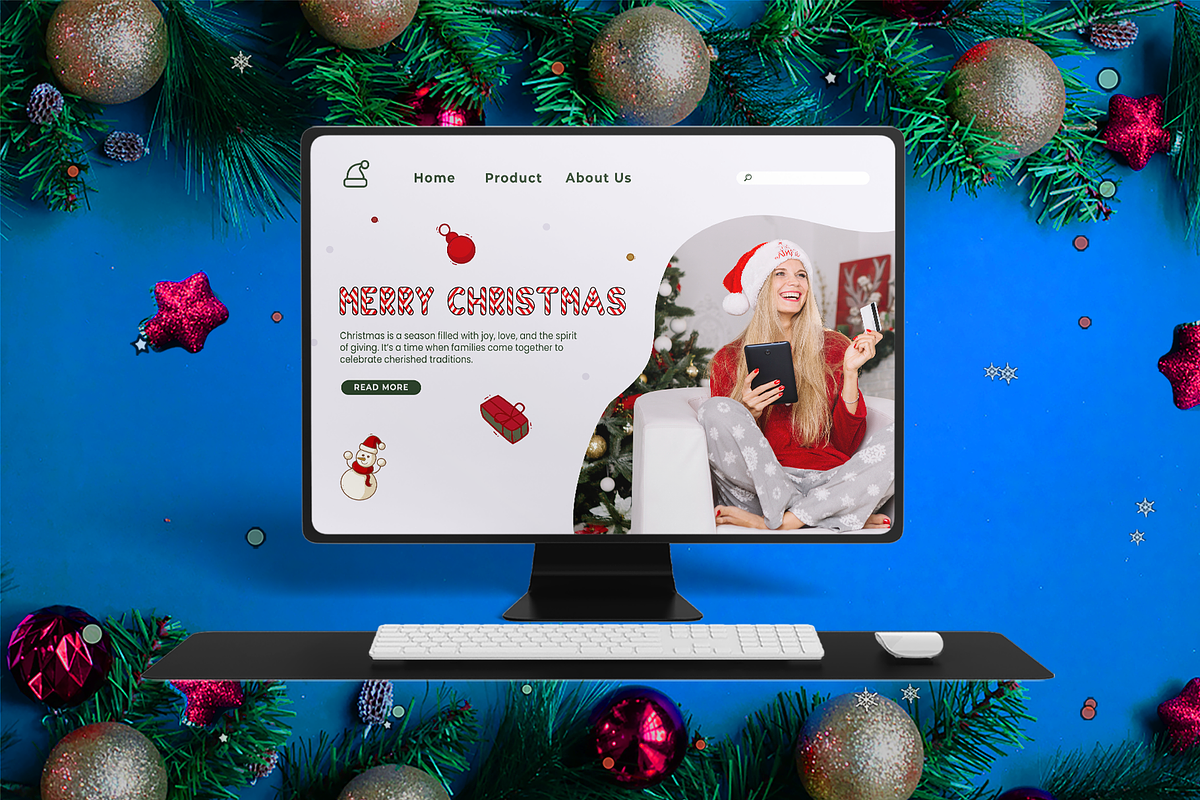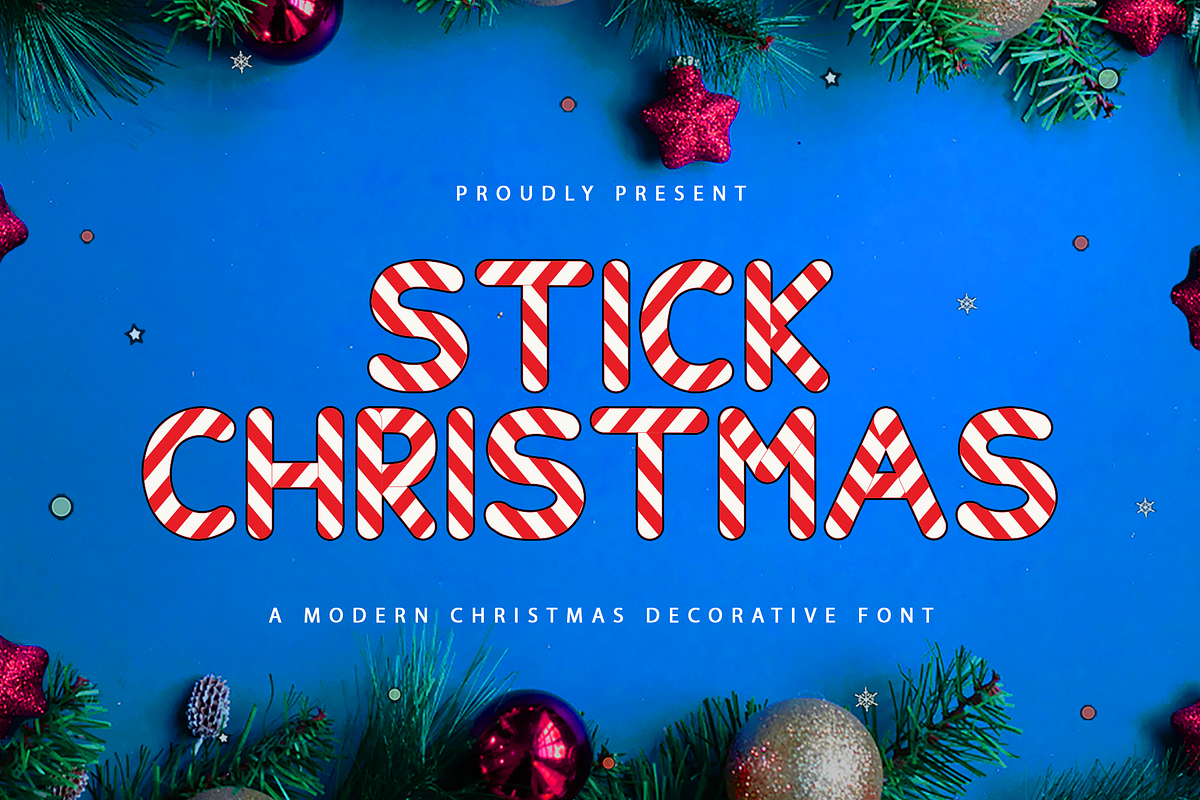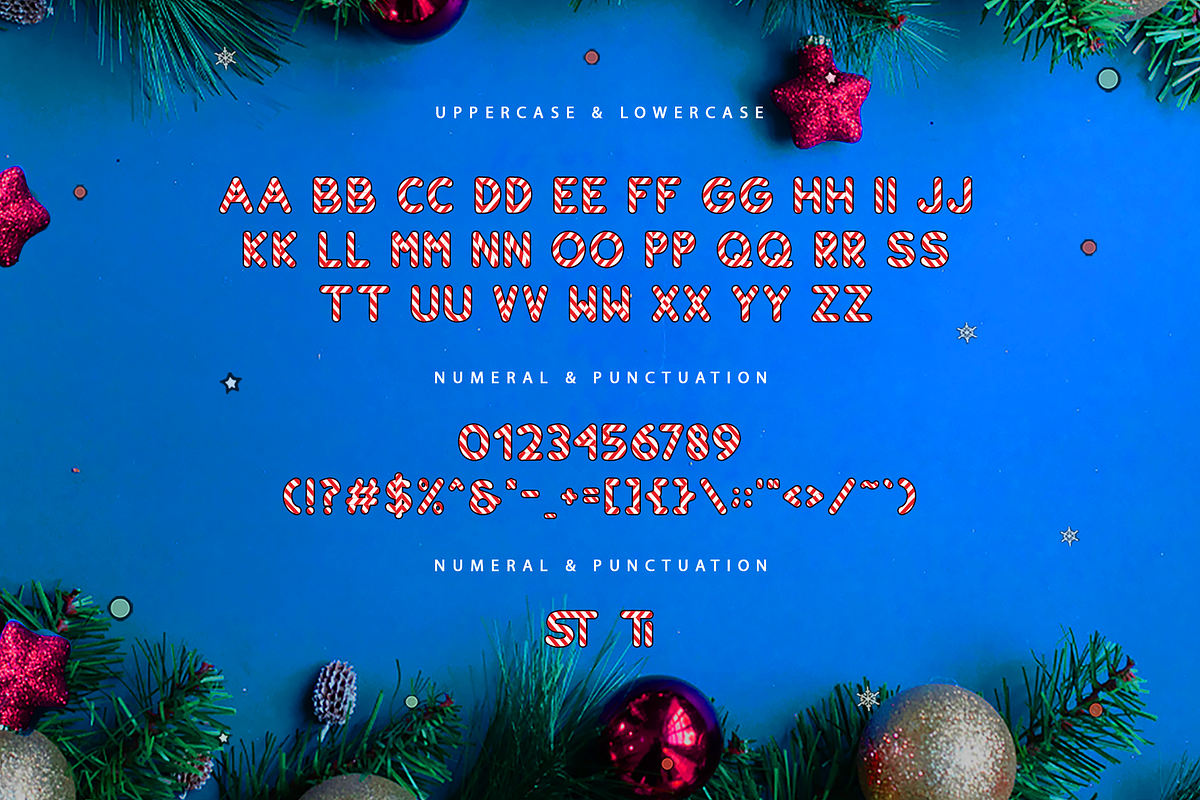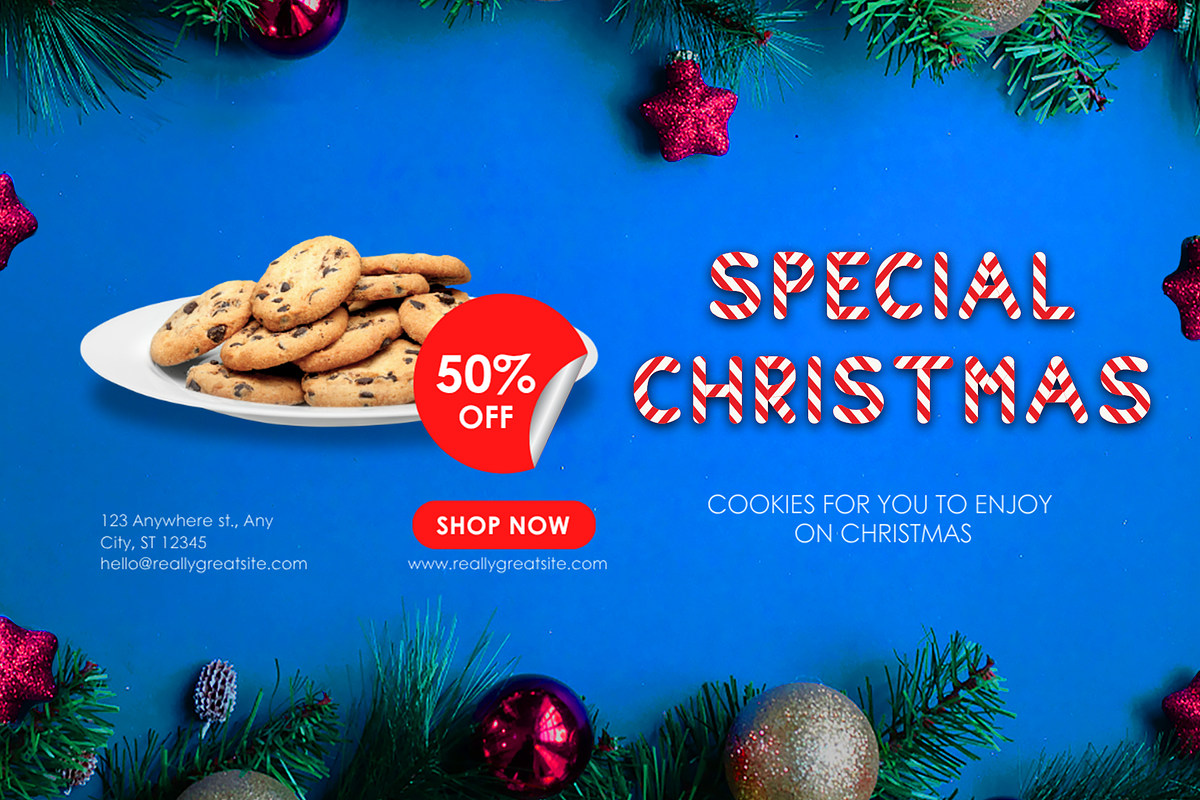
Stick Christmas–Christmas Decorative
Stick Christmas – Modern Christmas Decorative Font
Meet Stick Christmas, a modern decorative font that brings cheerful energy and festive fun to your holiday creations. Inspired by the playful spirit of Christmas, this typeface features unique letterforms that combine a hand drawn charm with a clean modern touch perfect for capturing the warmth and joy of the season.
Stick Christmas is ideal for greeting cards, posters, packaging, social media posts, and holiday branding. Its decorative strokes and whimsical shapes make it perfect for both kids’ and family-oriented designs, adding a lighthearted sparkle to every word.
Celebrate the most wonderful time of the year with Stick Christmas a font that makes your festive projects stand out with personality and charm.